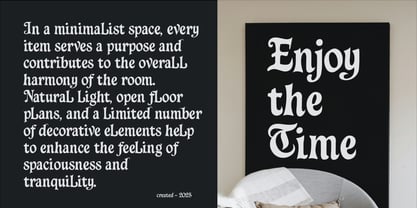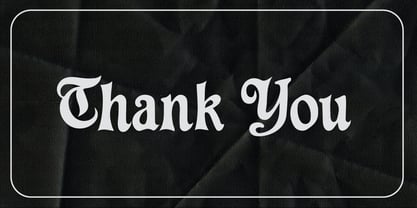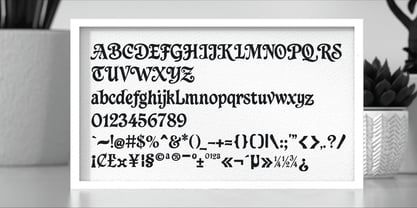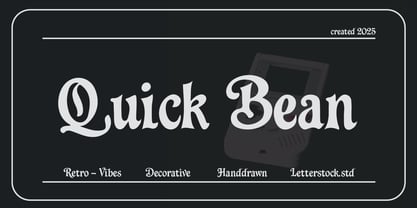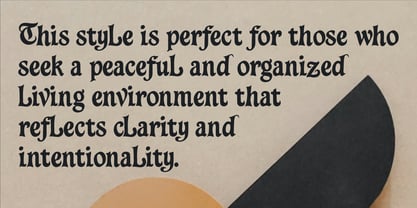
Quick Bean
by LetterStock
The Quick Bean Font Family was designed by Studio LetterStock and published by LetterStock. Quick Bean contains 1 styles. More about this family
“Qiuck Bean” is Retro hand drawn font
“Qiuck Bean” is a perfectly choice for any creative decorative design such as logos, advertisements, watermark on photography, stationery, branding project, display and magazine, invitation, corporate brand, product design, label, business project and many other project with creative decorative touch.